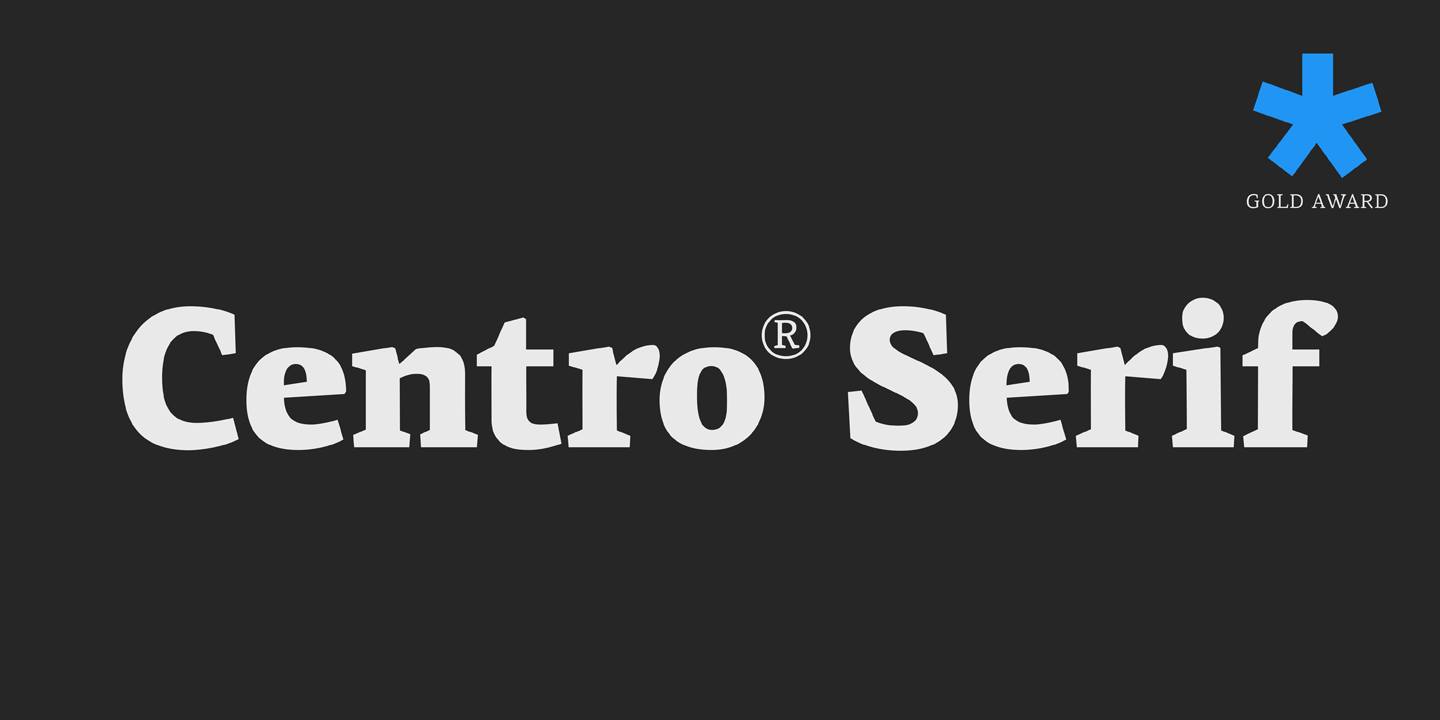
PF Centro Serif Pro Font Free Download is a sophisticated serif typeface that blends classic elegance with contemporary design. Known for its sharp serifs and excellent readability, it is perfect for editorial layouts, branding, book design, and professional presentations.
The font’s balanced proportions and refined details make PF Centro Serif Pro Font Free Download an ideal choice for creating a strong visual impact while maintaining clarity. Its versatility allows it to shine in both headlines and body text, adding a touch of authority and style.
Elevate your design projects with the timeless appeal of PF Centro Serif Pro Font Free Download. If you want a font that perfectly combines tradition with modernity, PF Centro Serif Pro is an excellent option.